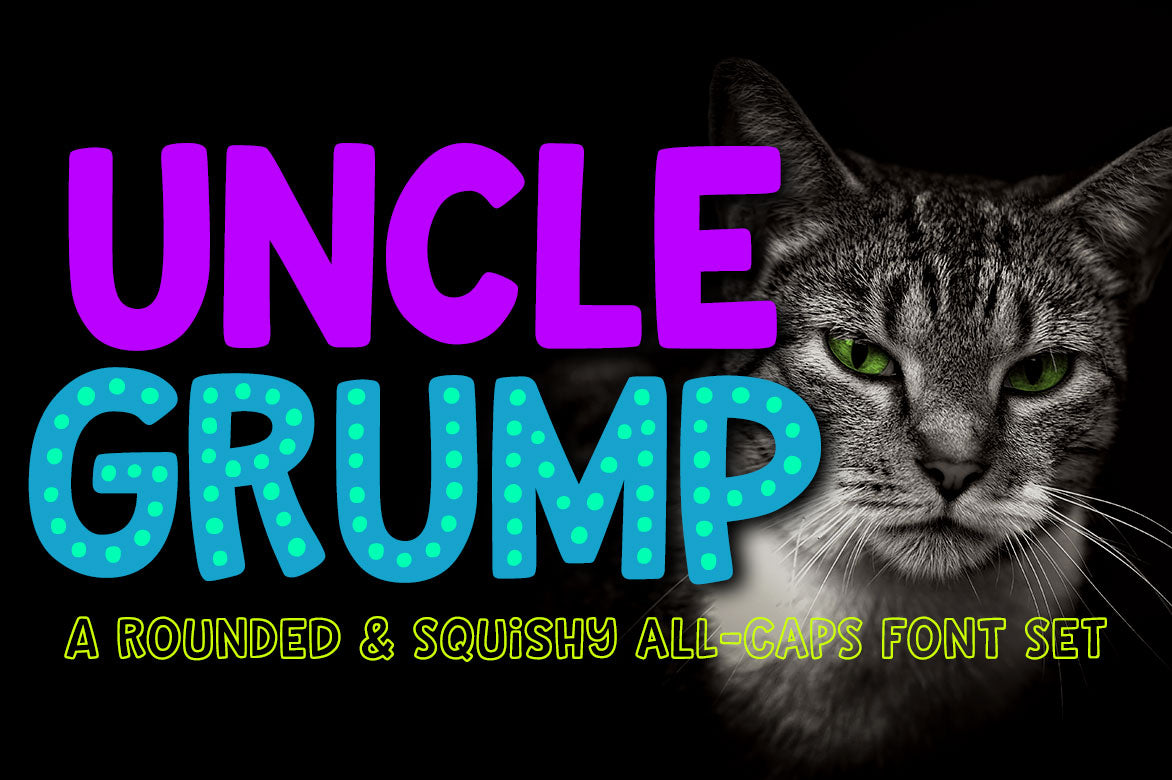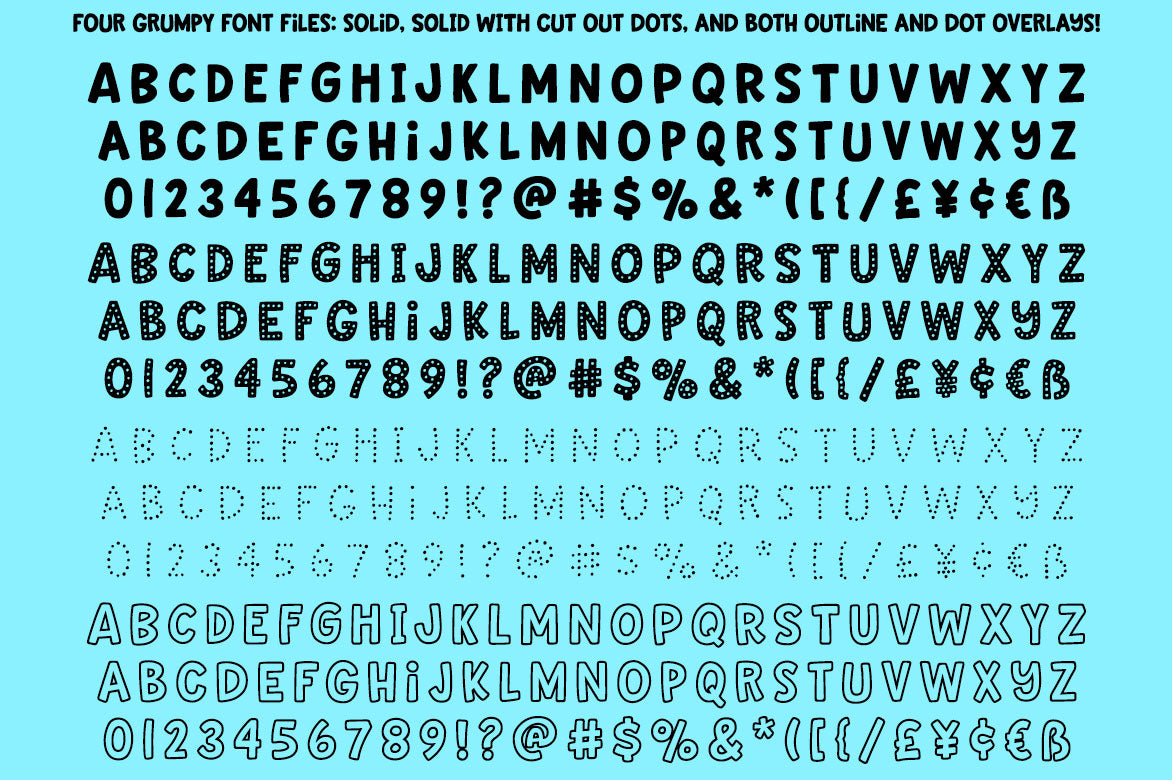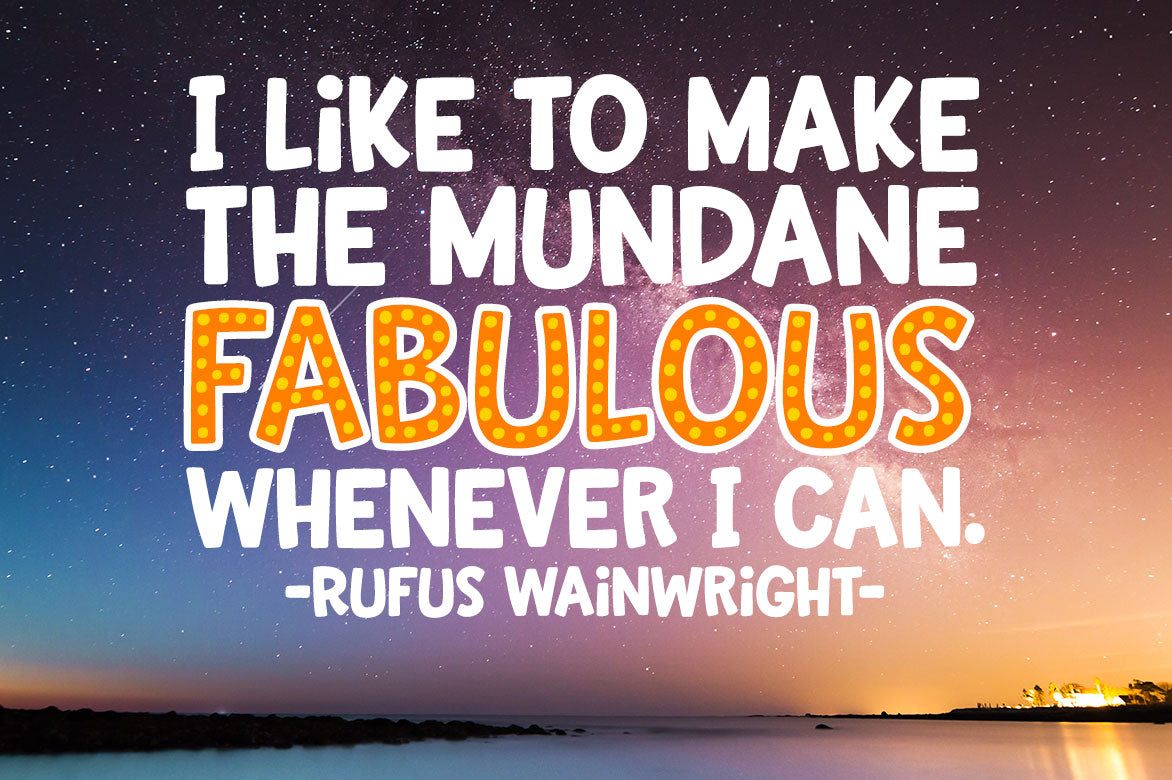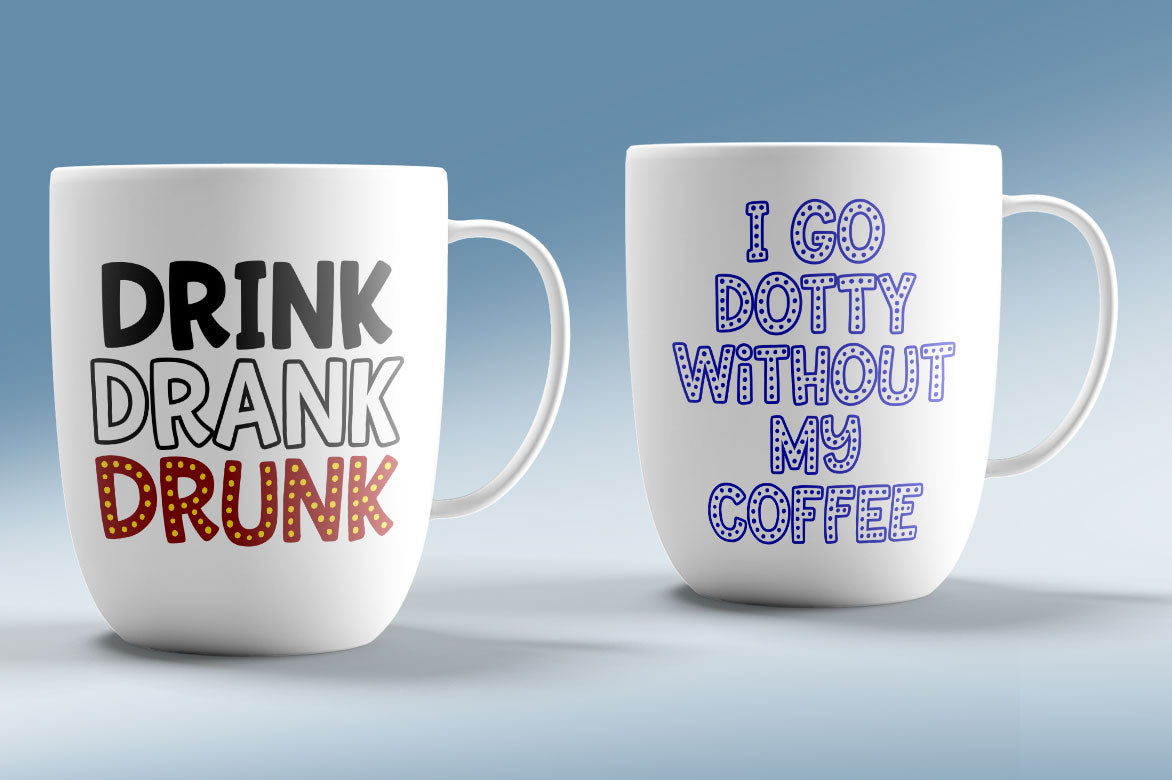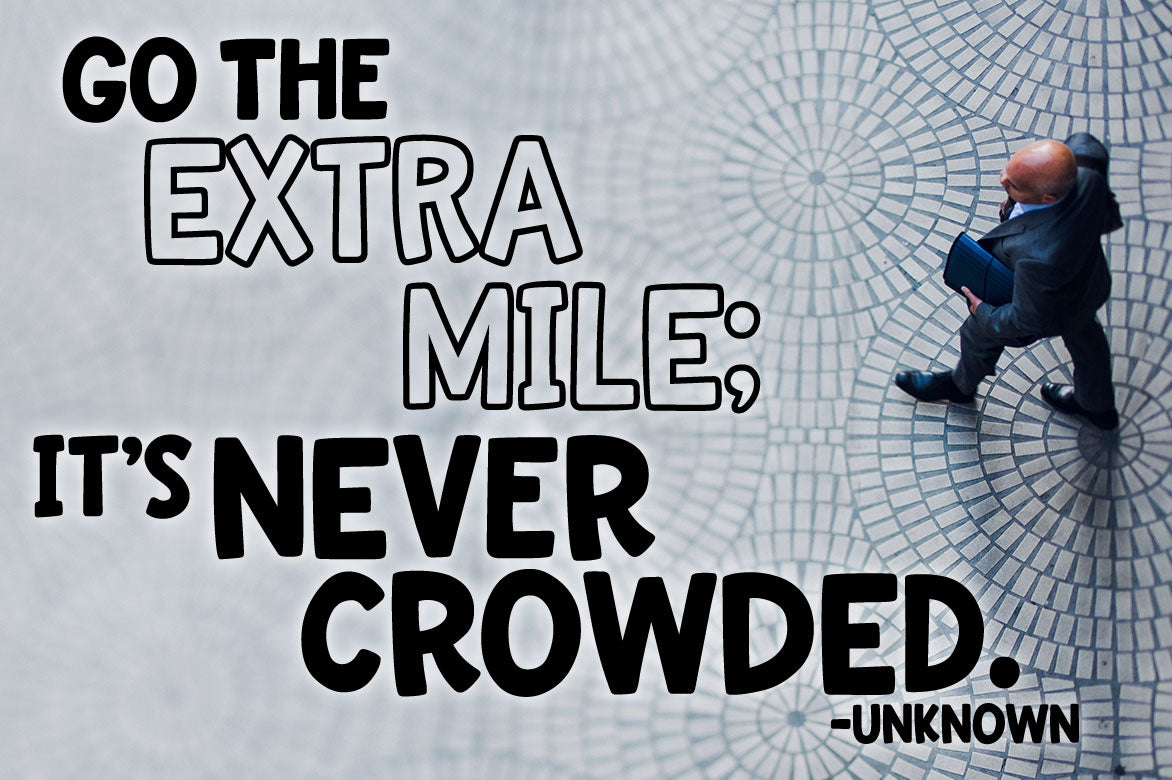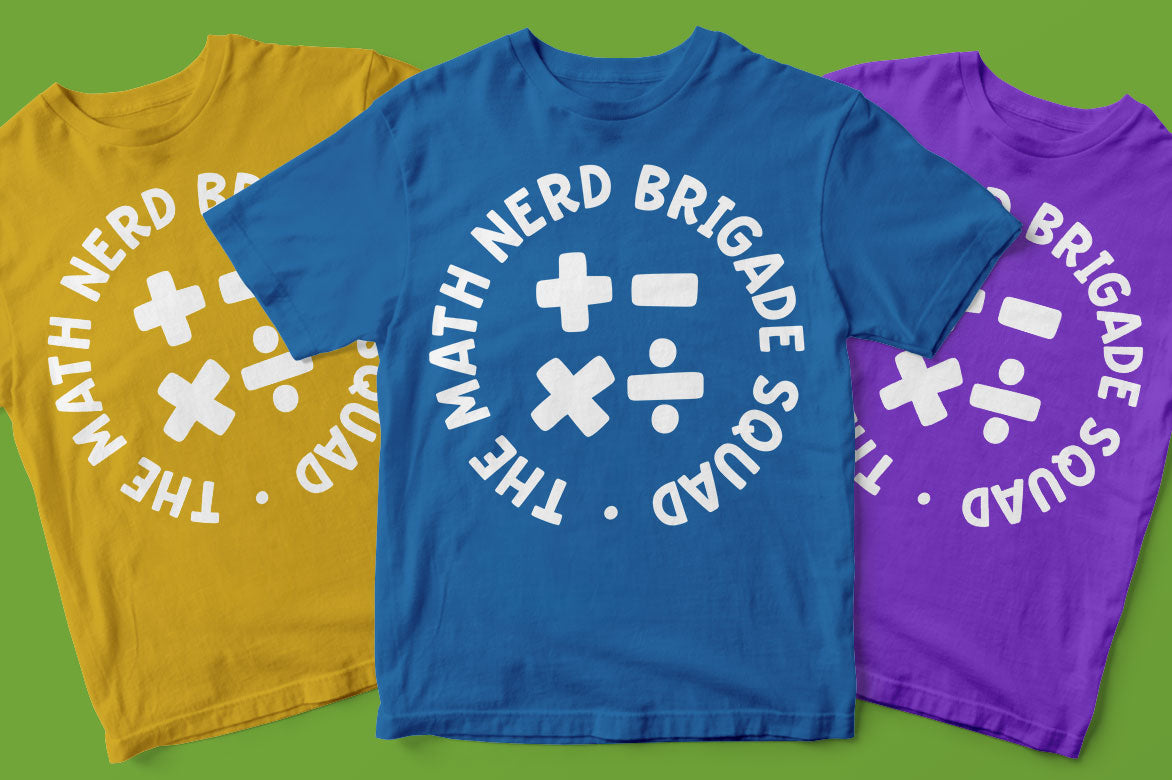
Uncle Grump is based on one of the styles people want the most when I'm doing hand-lettered projects. It's heavy and bold, but rounded on the corners and has a fun hand-drawn feel. It's great for all your kid-related projects, but can also fit with a grown-up vibe.
Plus, because I like to give you options, I've included some extras -- by layering the same words on top of each other and changing each layer's font, you can add in some dots, an outline, or both! And as usual, I've smoothed the lines and reduced the number of nodes/points to make this a clean font for crafting, cutting, and printing. The Uncle Grump family includes a solid base, a solid base with transparent dots cut out, a version with just the dots, and an outline version.
Each member of the family contains the basics (A–Z, a–z, 0–9, punctuation), as well as over 300 extended Latin characters for language support, and a few stylistic alternates for variety.